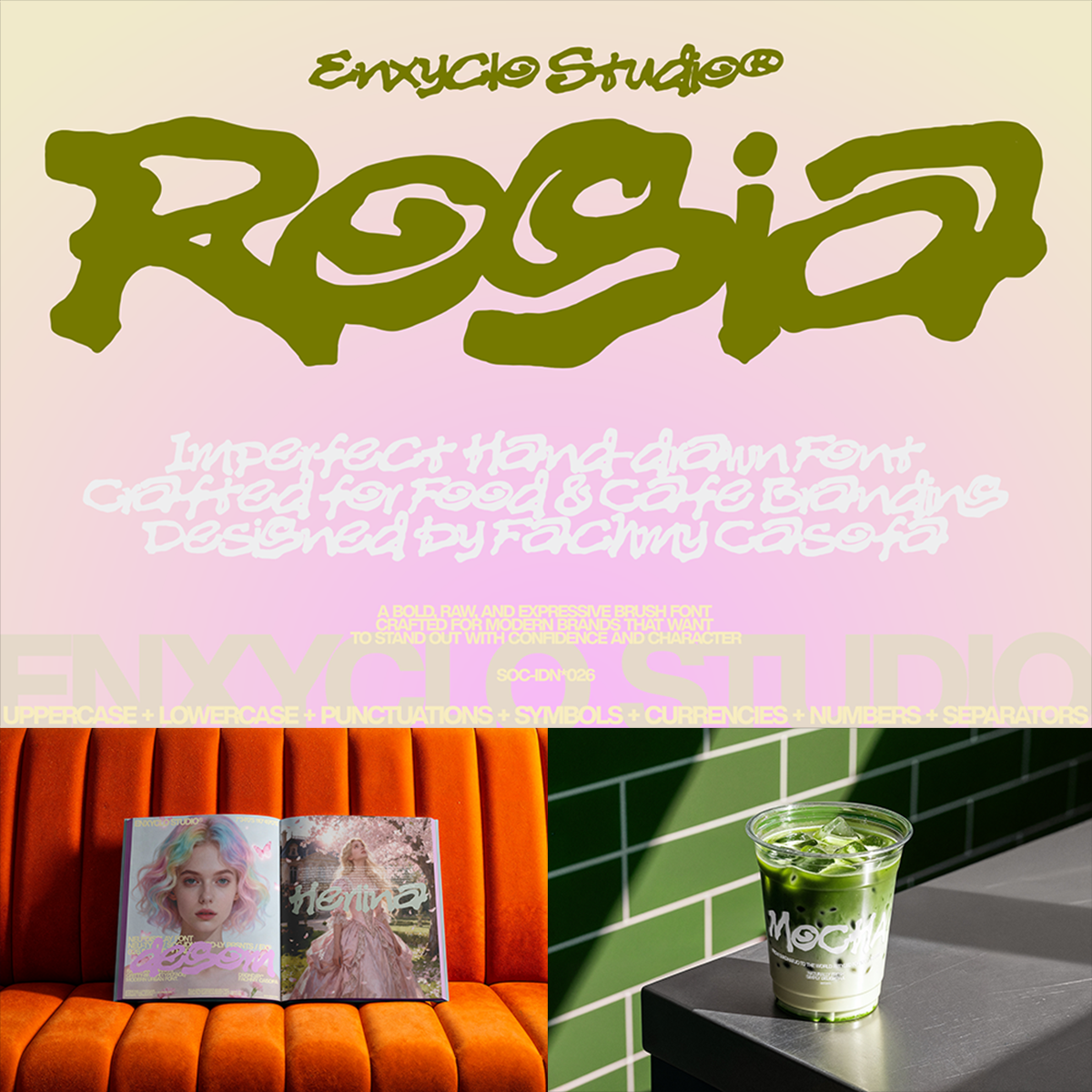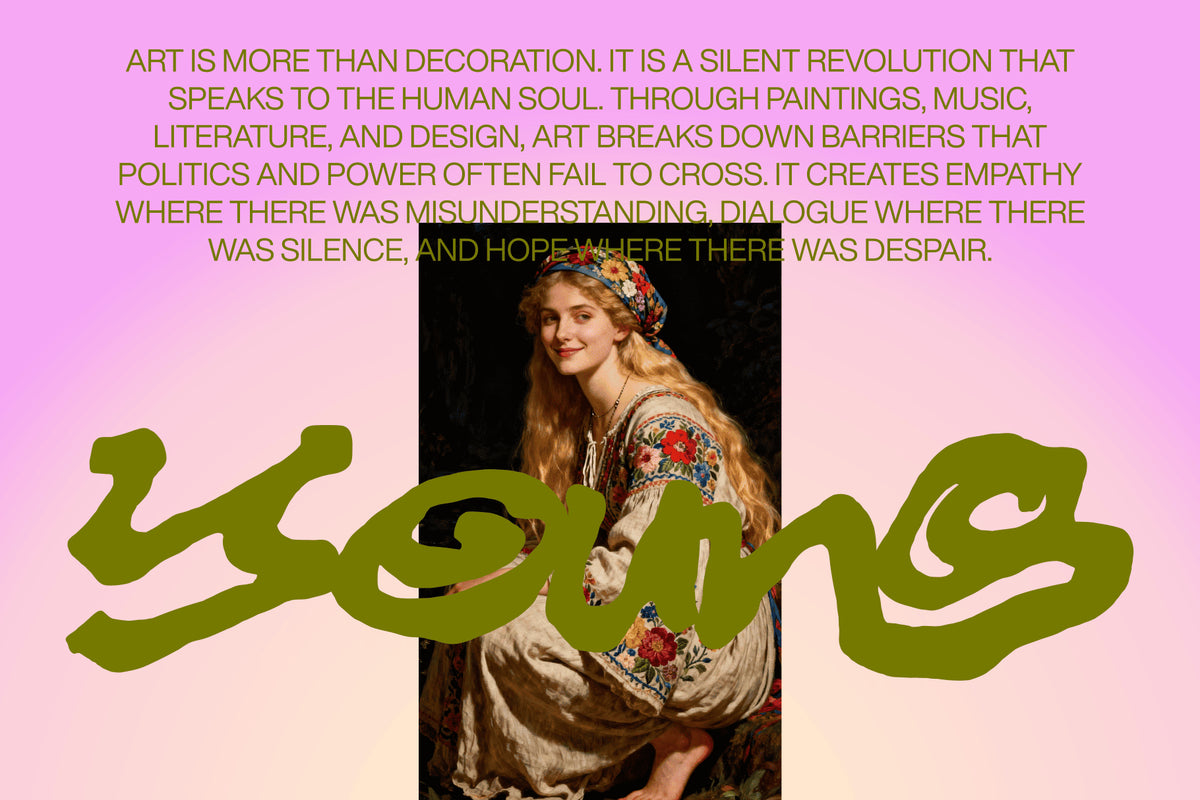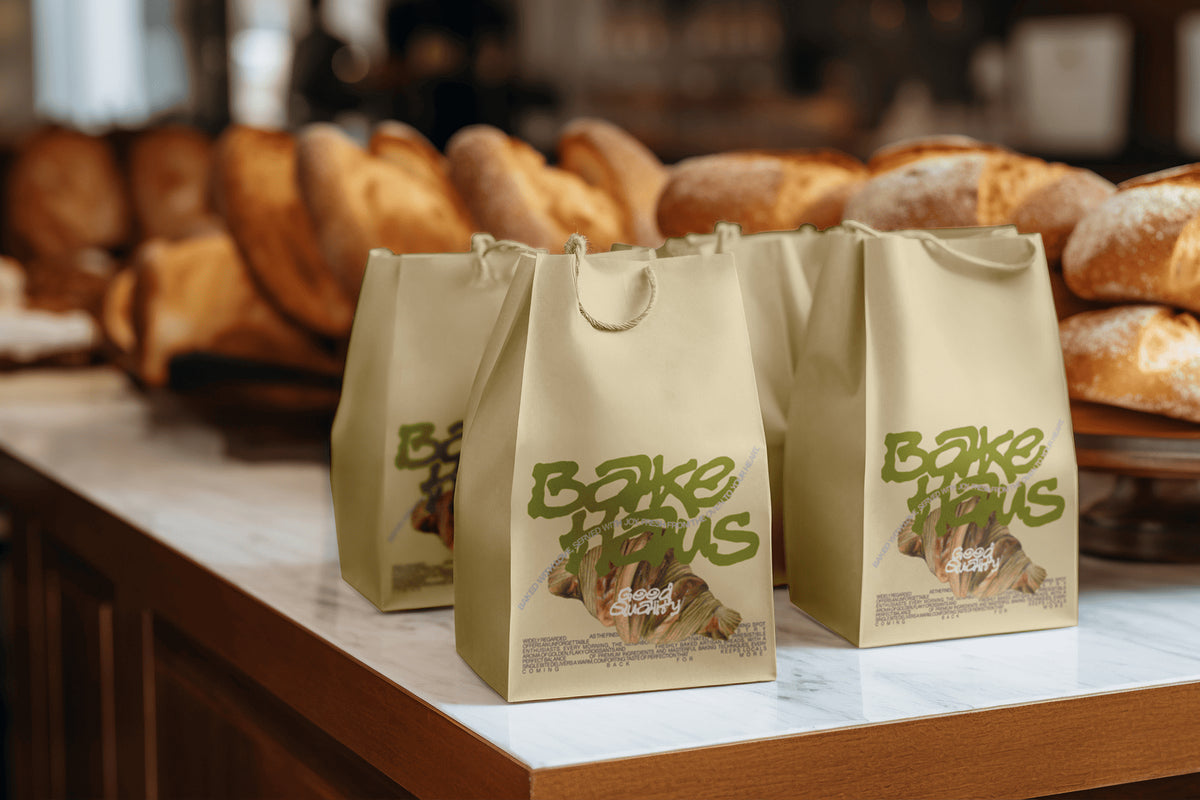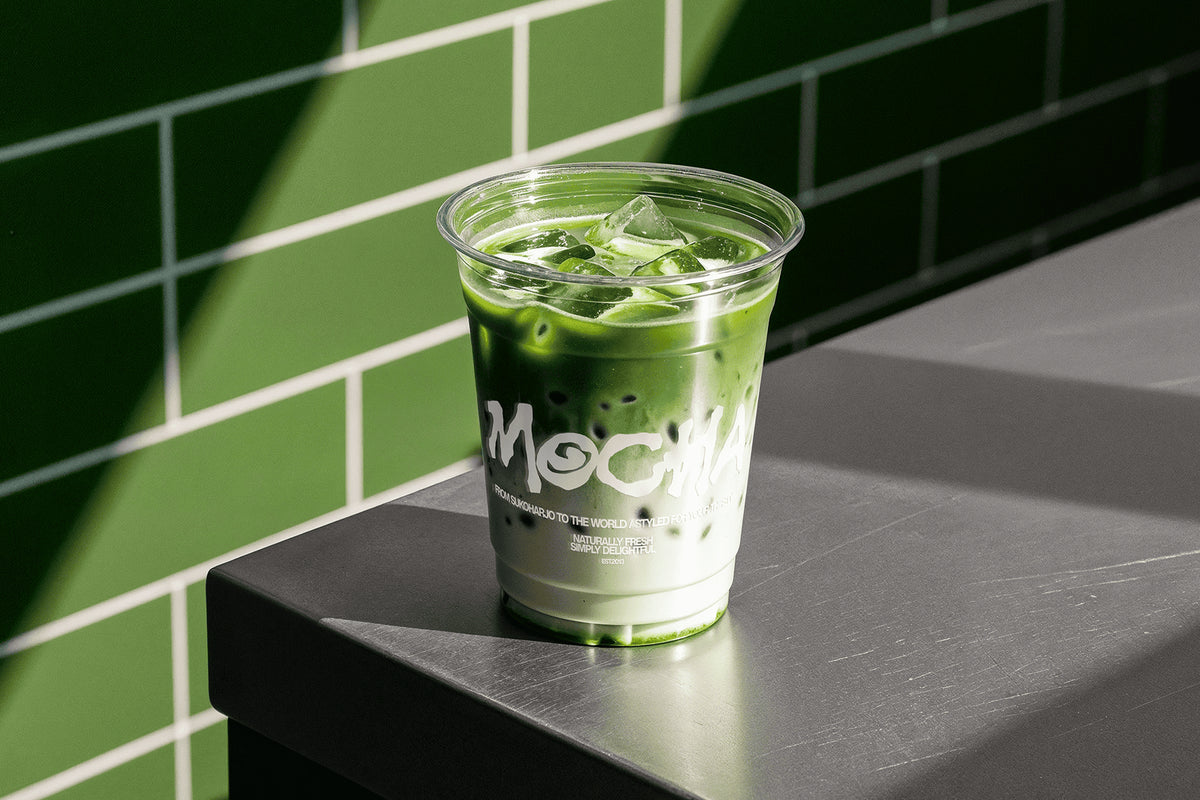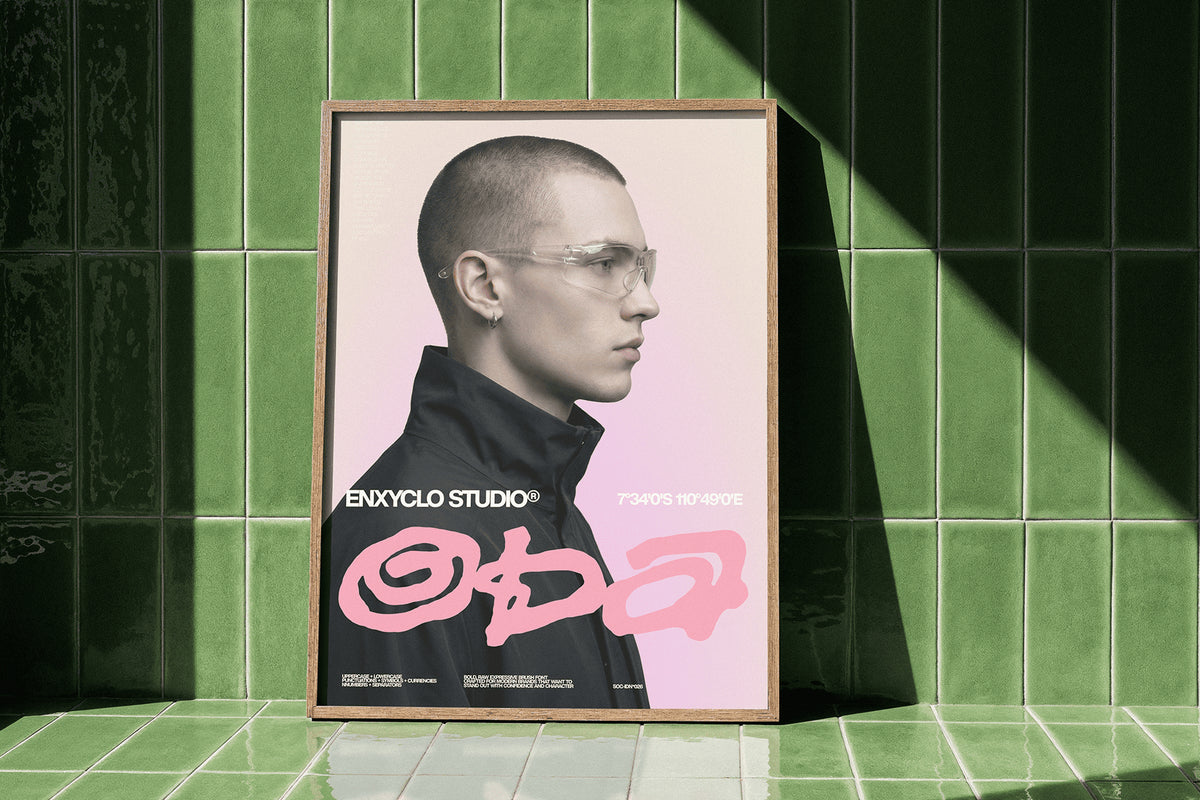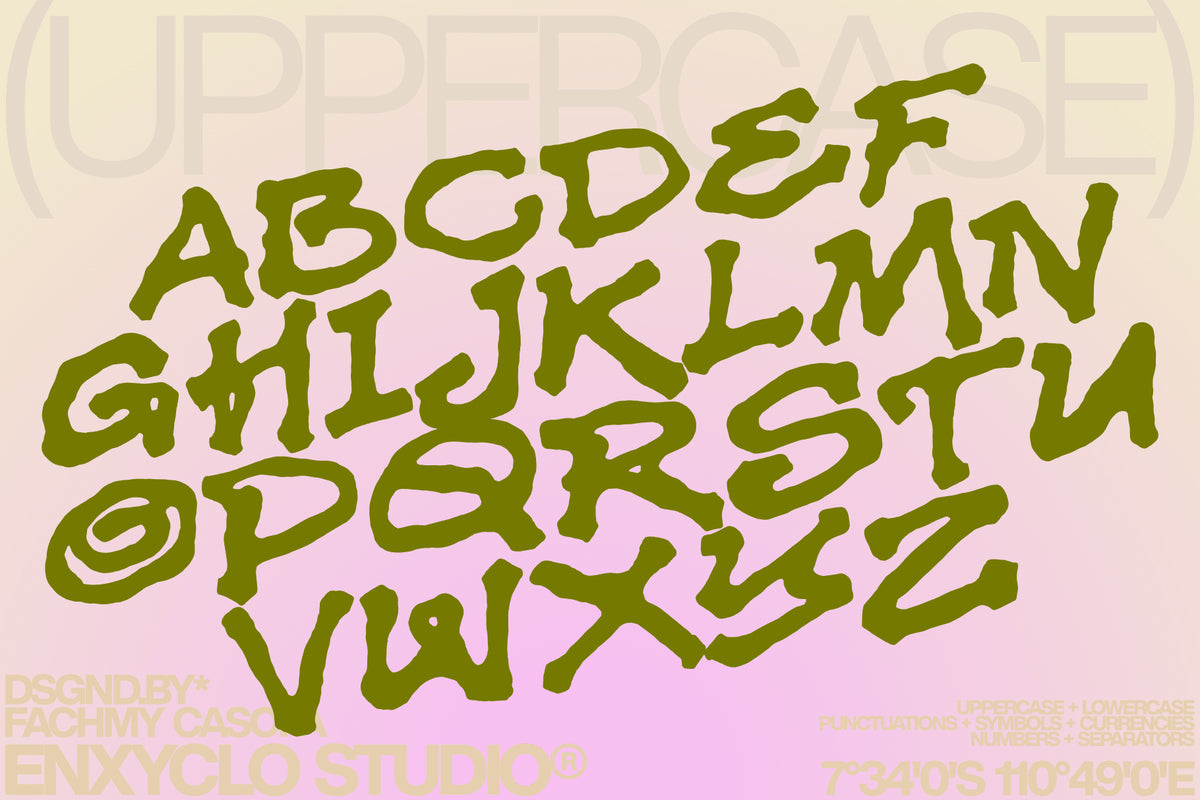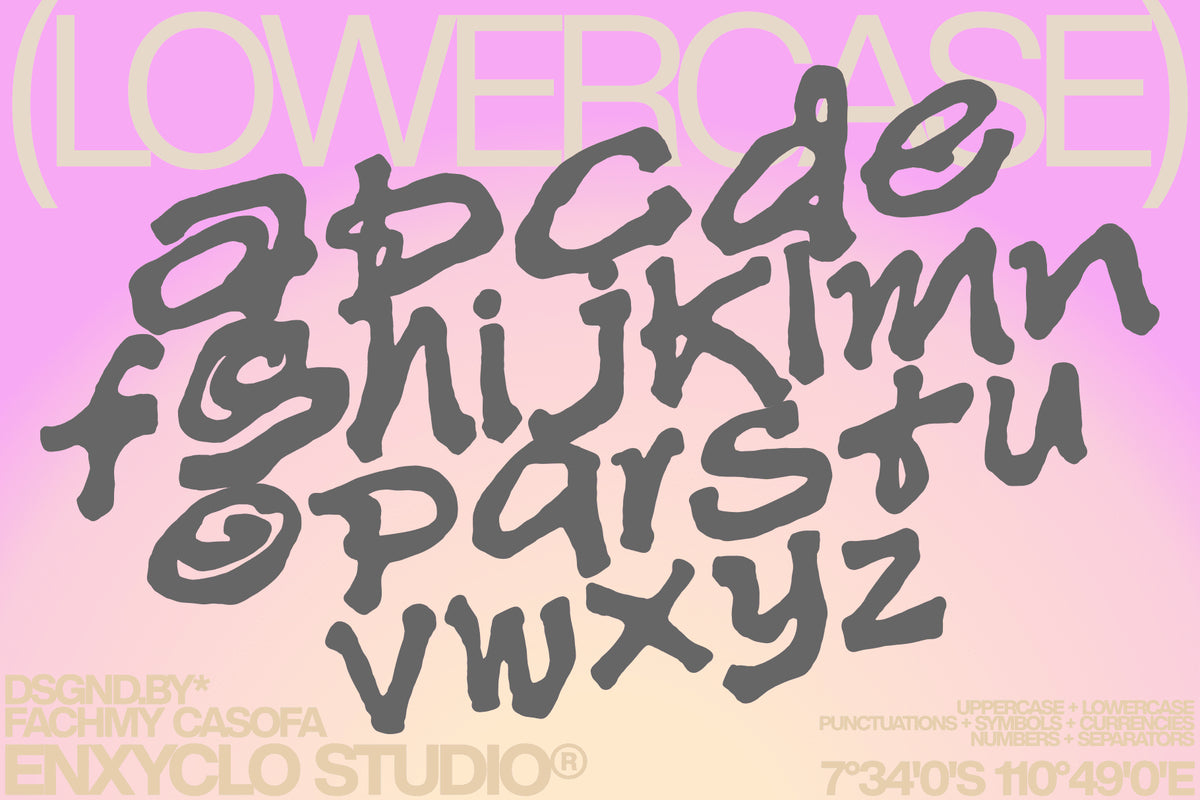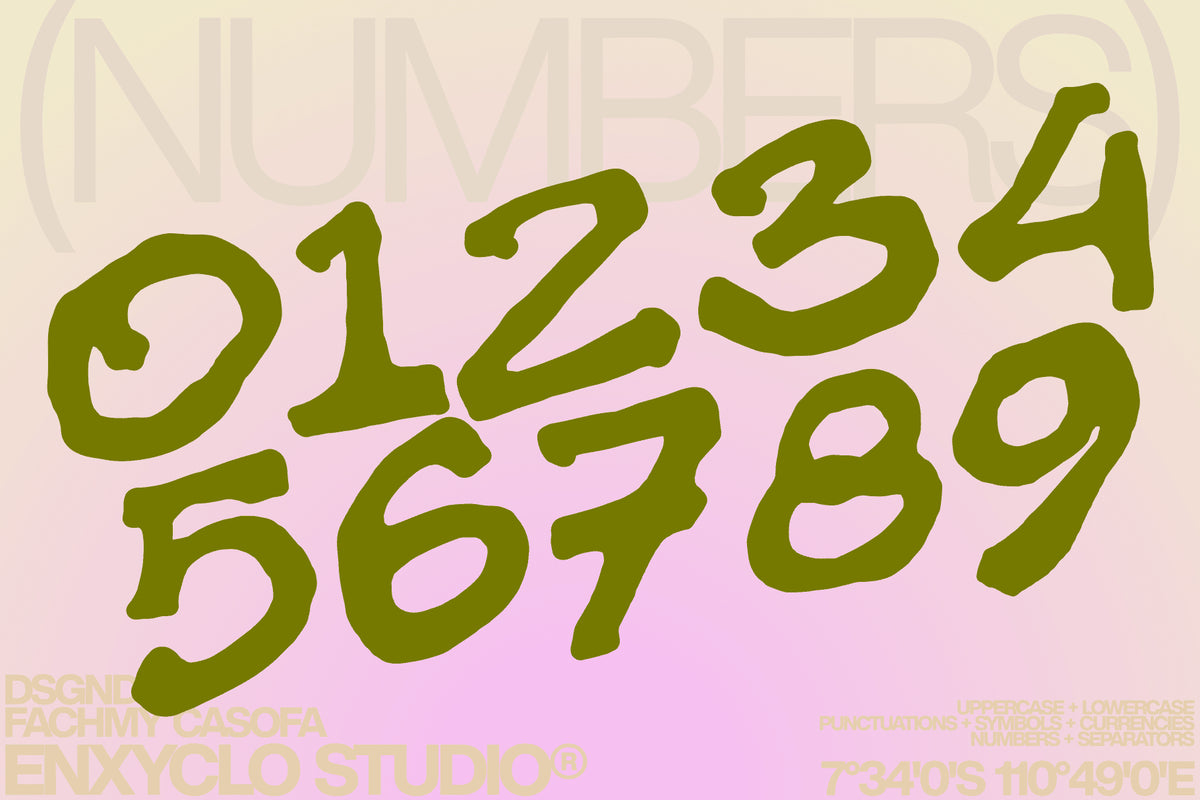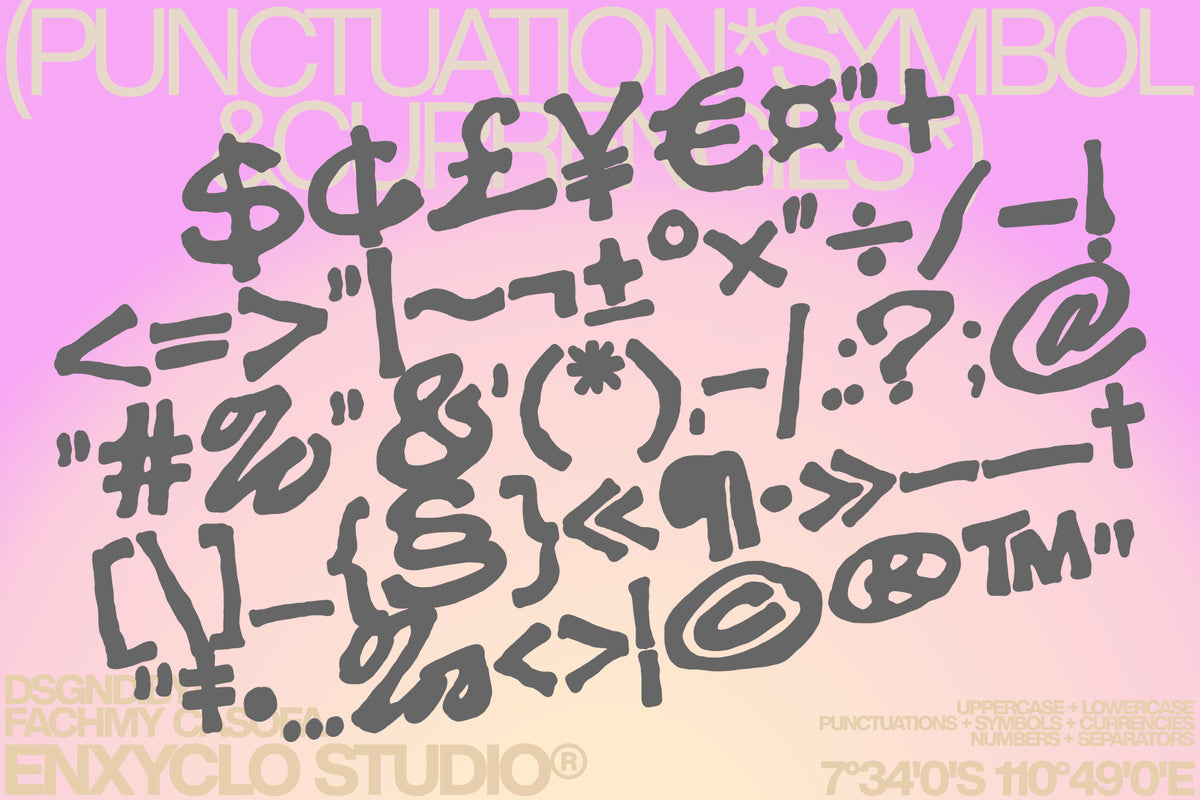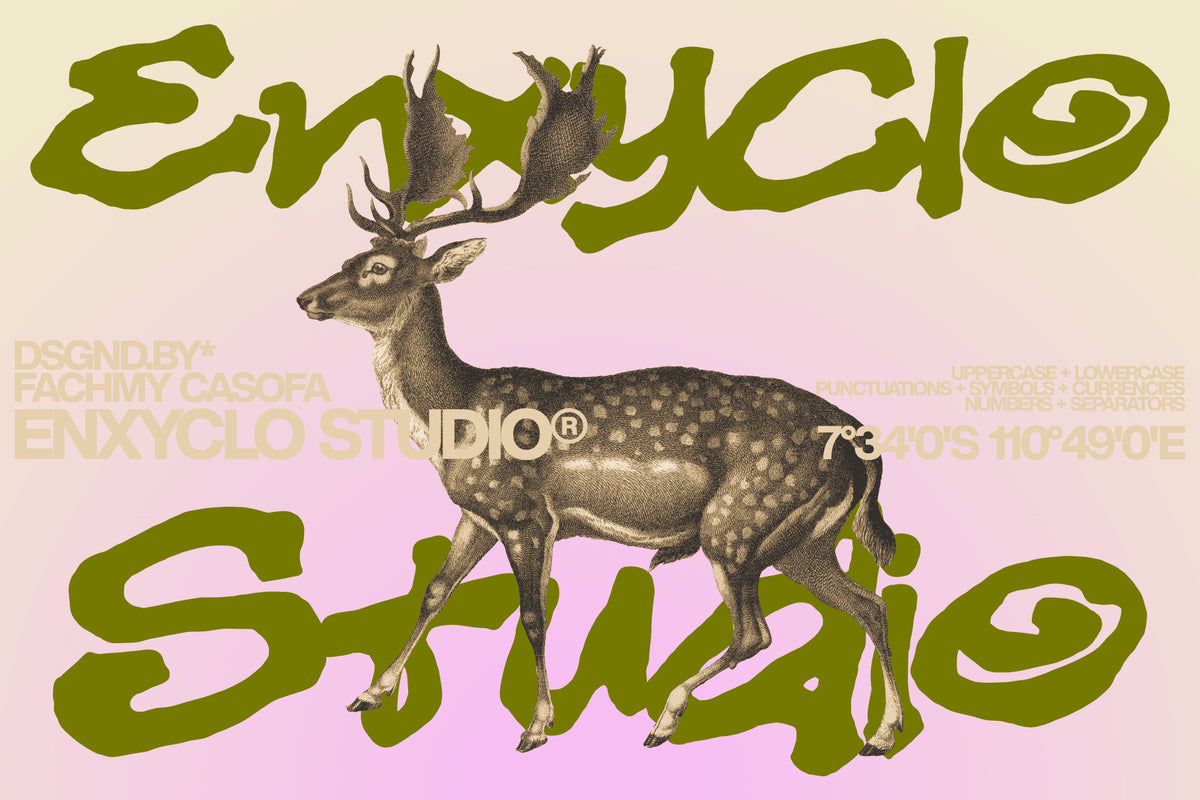
ROGIA — Food & Cafe Branding Font
ROGIA is a raw imperfect handdrawn font created for modern food, restaurant, and café branding with a bold appetite for personality. Inspired by the energetic atmosphere of busy kitchens, neighborhood cafés, street food, and creative food culture, this expressive brush typeface combines rough handmade strokes with an urban visual attitude. Its gritty, imperfect character gives every word a fresh and authentic feeling—like handwritten signage created right in the heart of a bustling kitchen.
PERFECT FOR
• Restaurant & Café Branding
• Food & Beverage Logos
• Bakery & Bread Branding
• Coffee Shop & Café Menus
• Pizza & Burger Branding
• Sushi & Japanese Food Packaging
• Donut, Cake & Dessert Packaging
• Ice Cream & Milkshake Branding
• Fast Food Visual Identity
• Food Packaging & Labels
• Menu Design & Headlines
• Street Food Branding
• Food Festival & Event Posters
• Social Media Food Campaigns
• Handdrawn Food & Beverage Advertising
ROGIA is a hand-drawn brush typeface featuring rough, imperfect strokes, available in OTF, TTF, and WOFF formats. It includes uppercase and lowercase letters, punctuation marks, a symbol set, and currency symbols.